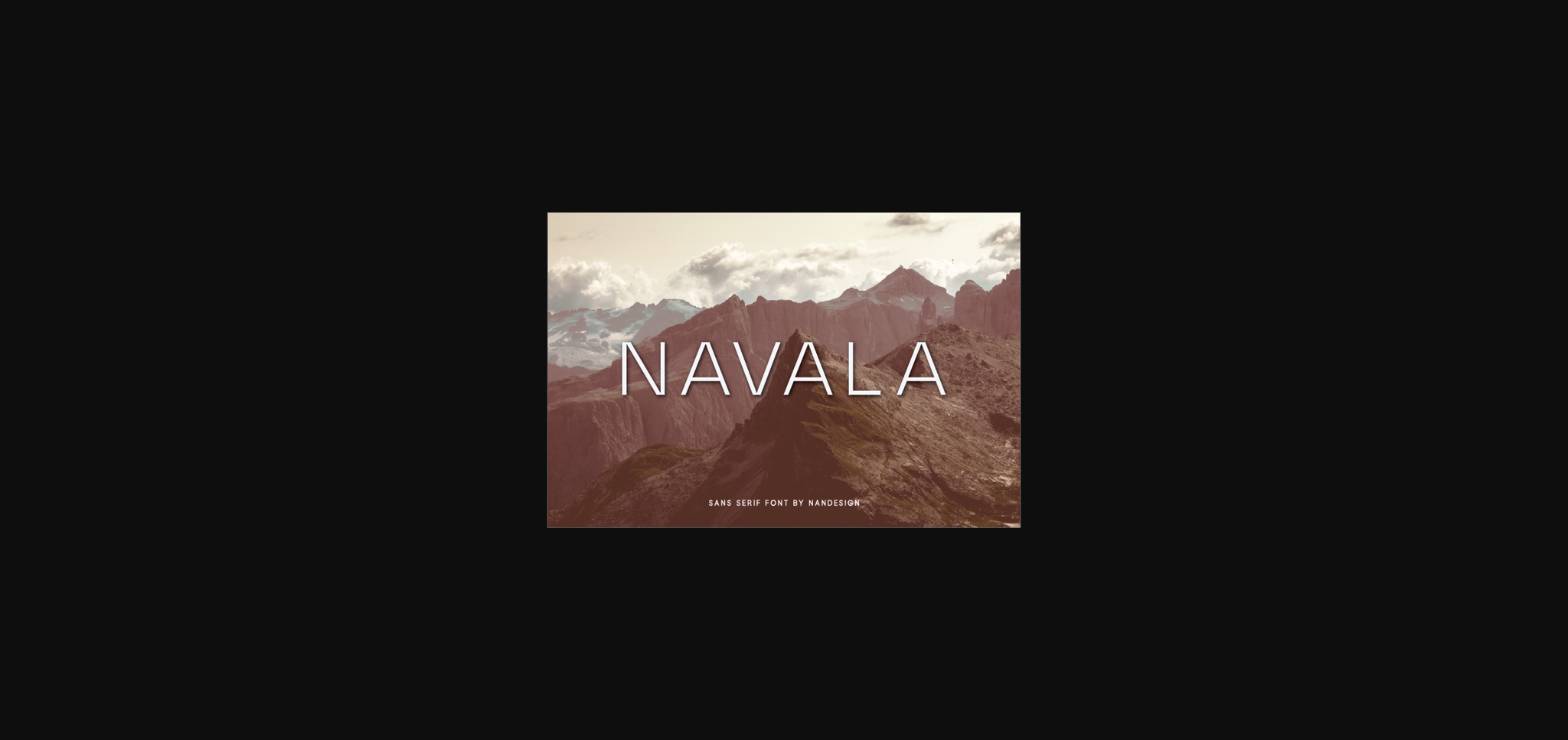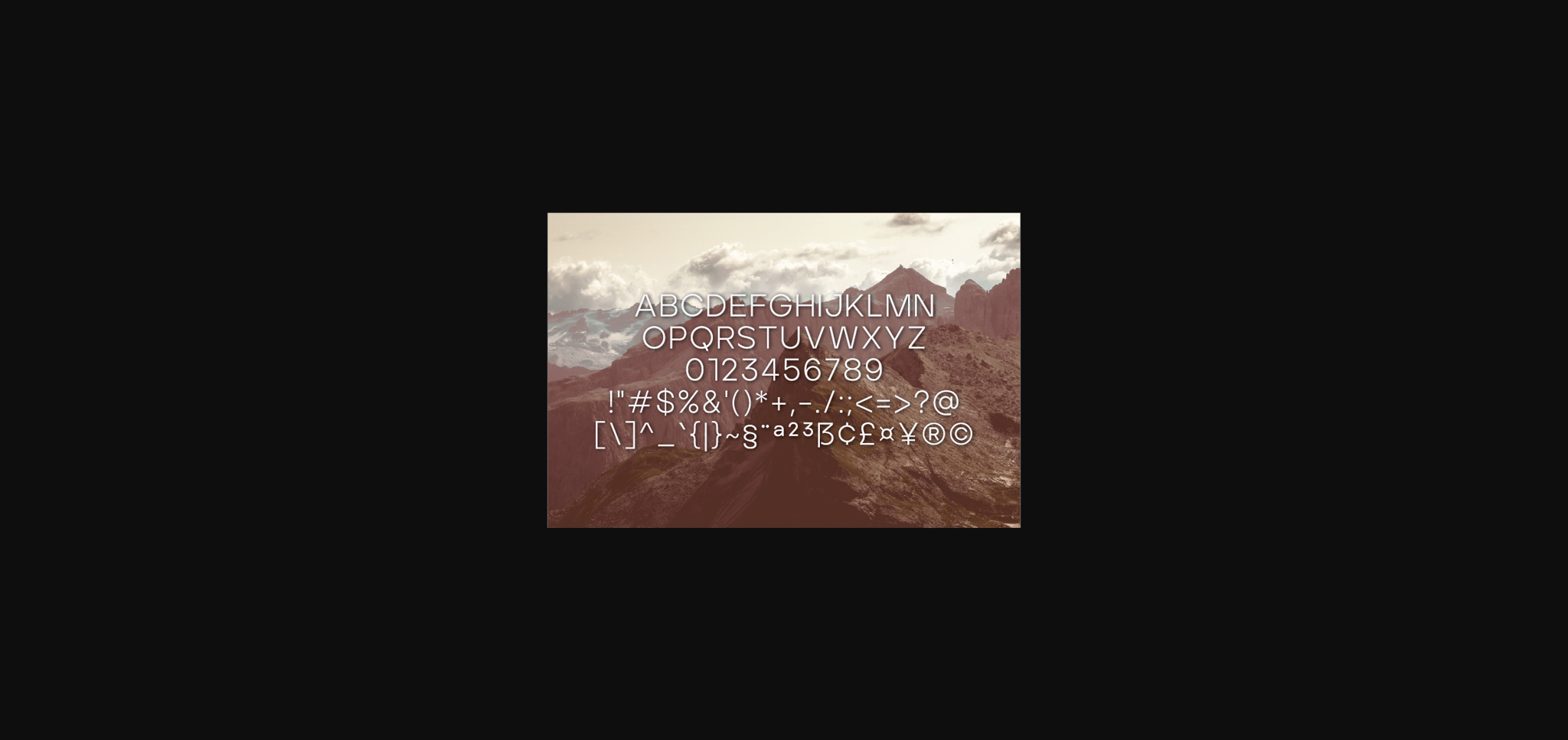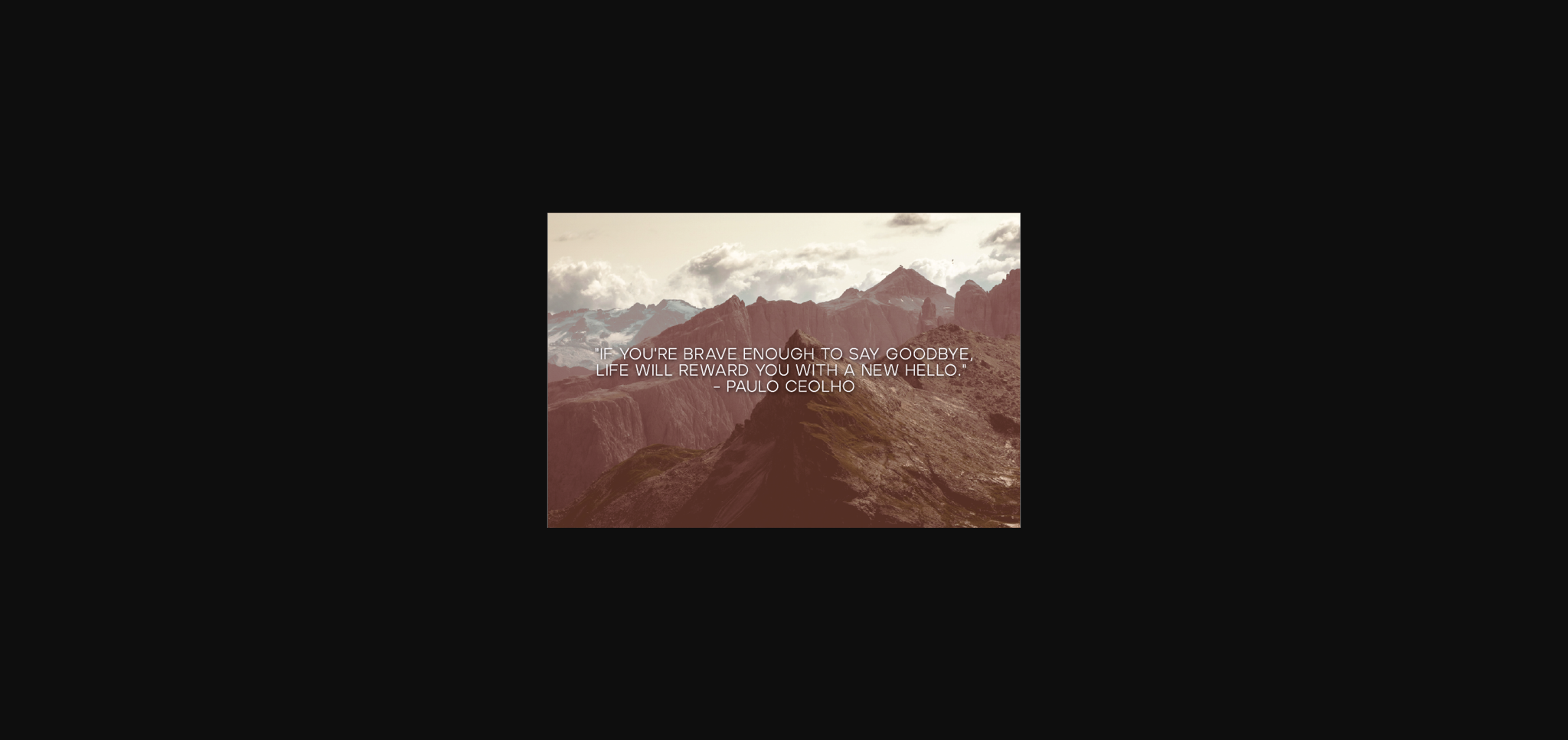
About Navala Font
Navala is a stunning sans serif font created to complement every project you’re working on.
It is perfect for displays, headers, invitations, save the dates, weddings, and so much more!